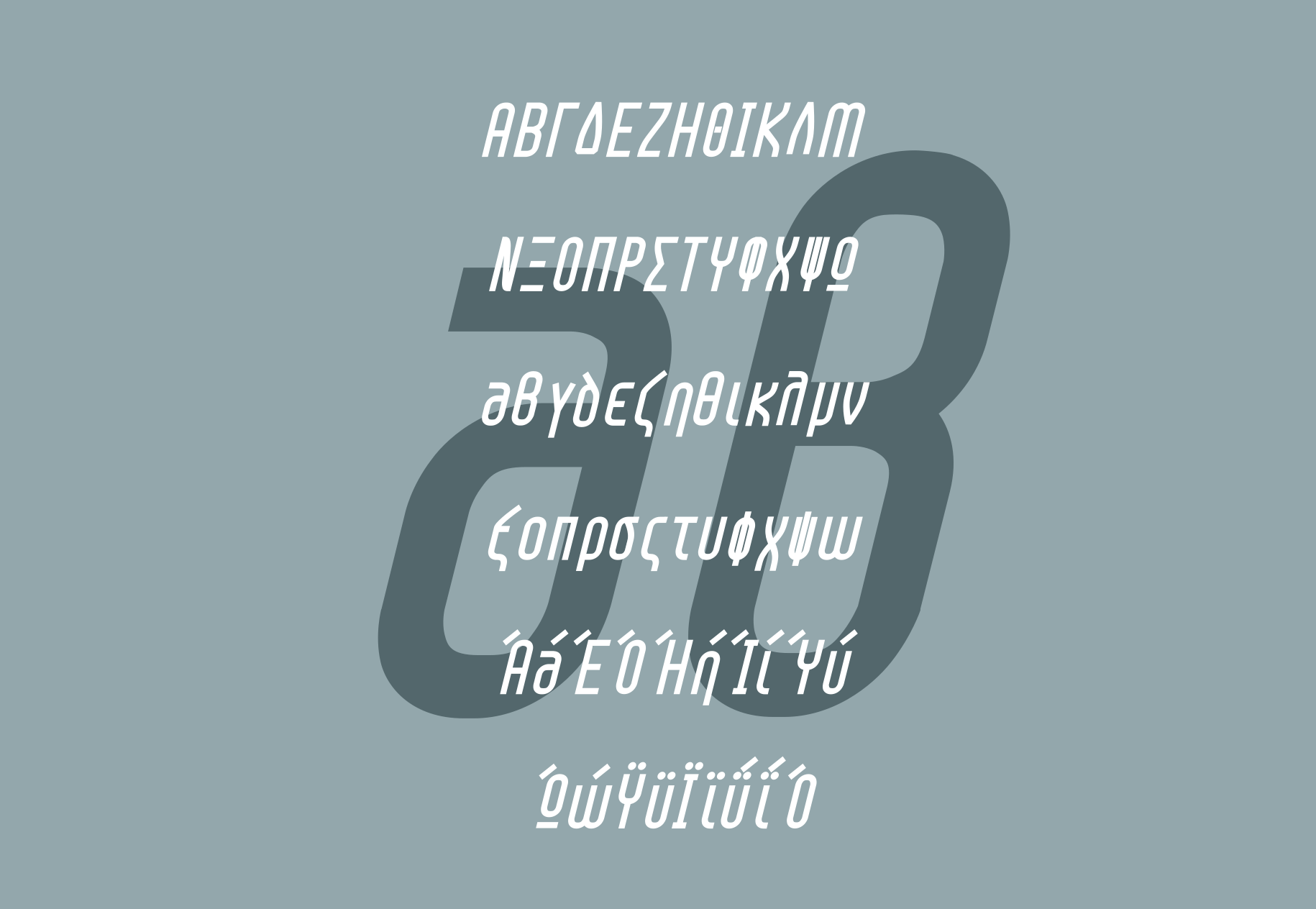
PVF_Service is a Display Condensed Sans-Serif Unicode Opentype font designed to cover the digital feeling of your typography works featuring Greek, Latin, numbers, and symbols in Light, Normal and Medium styles including the Oblique ones.